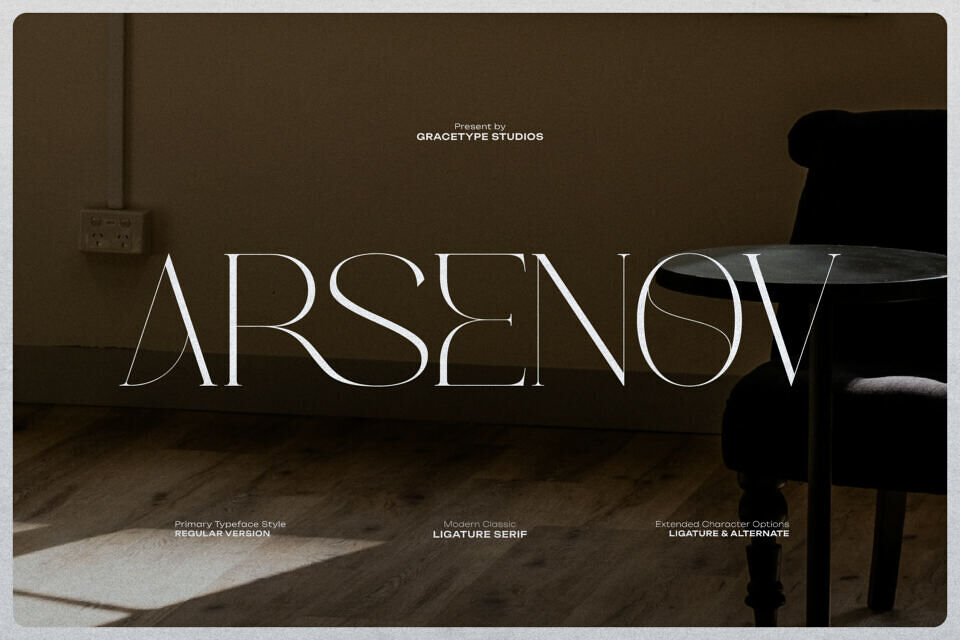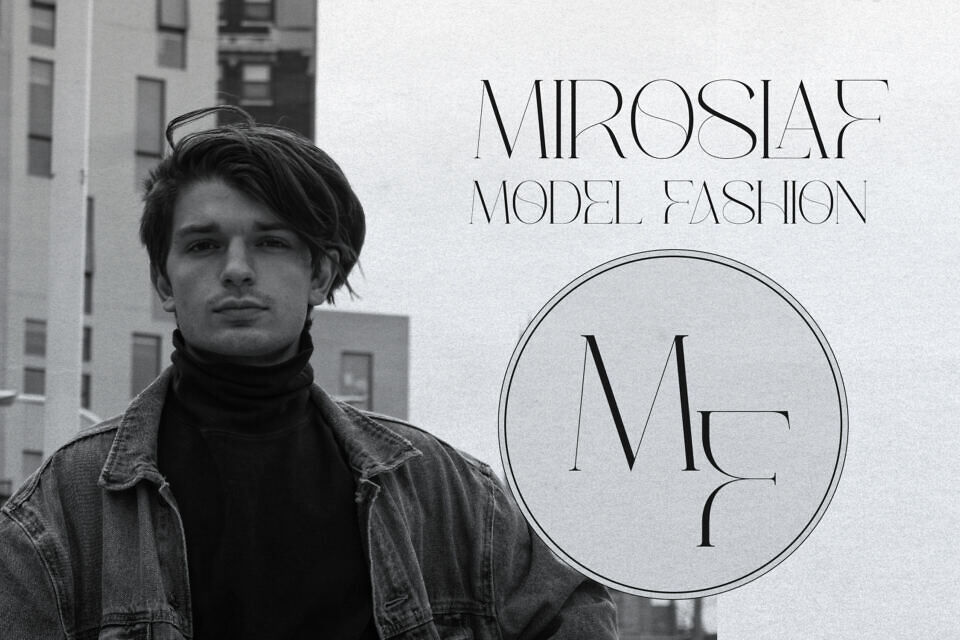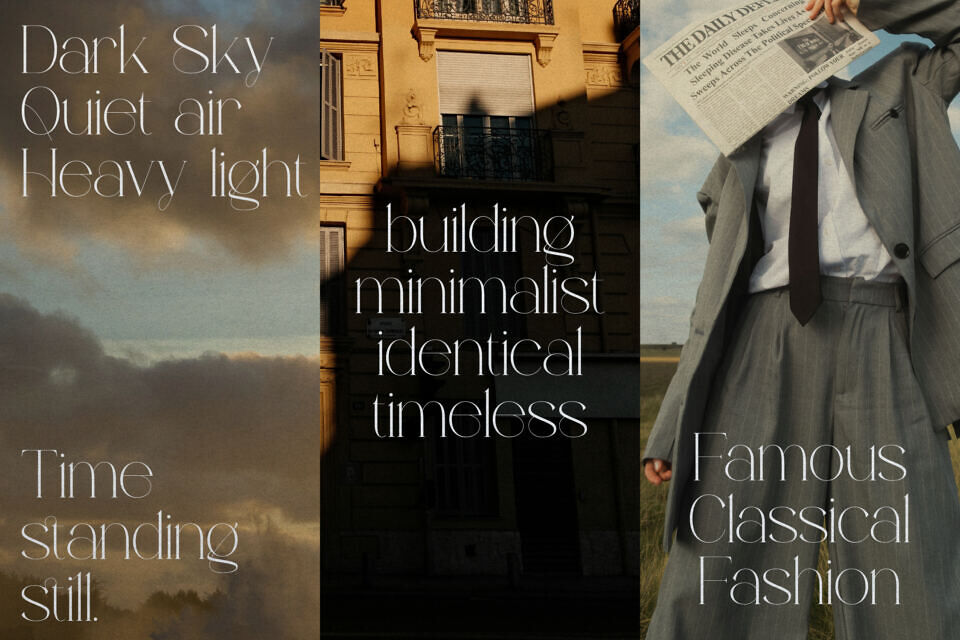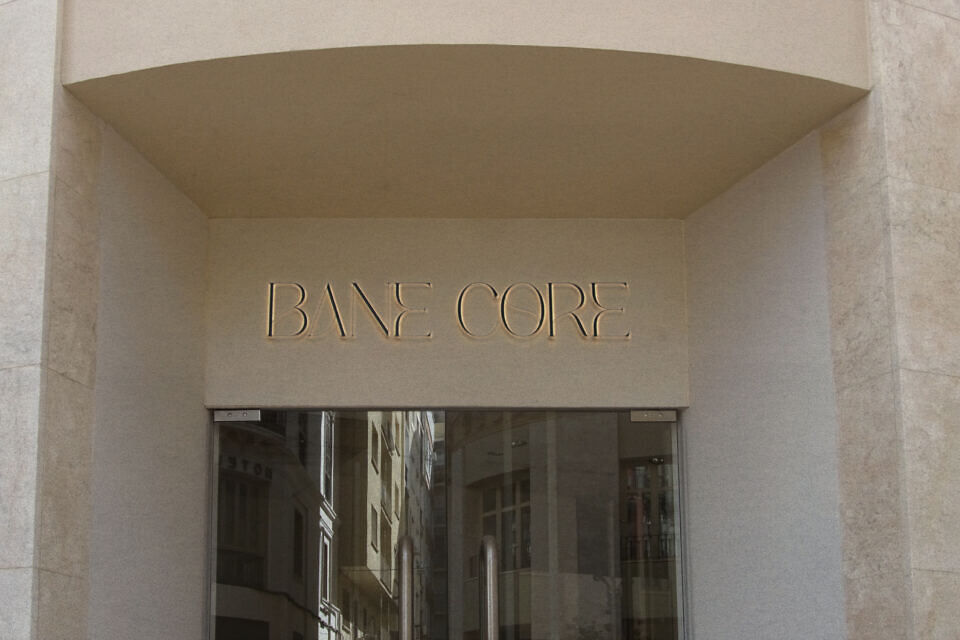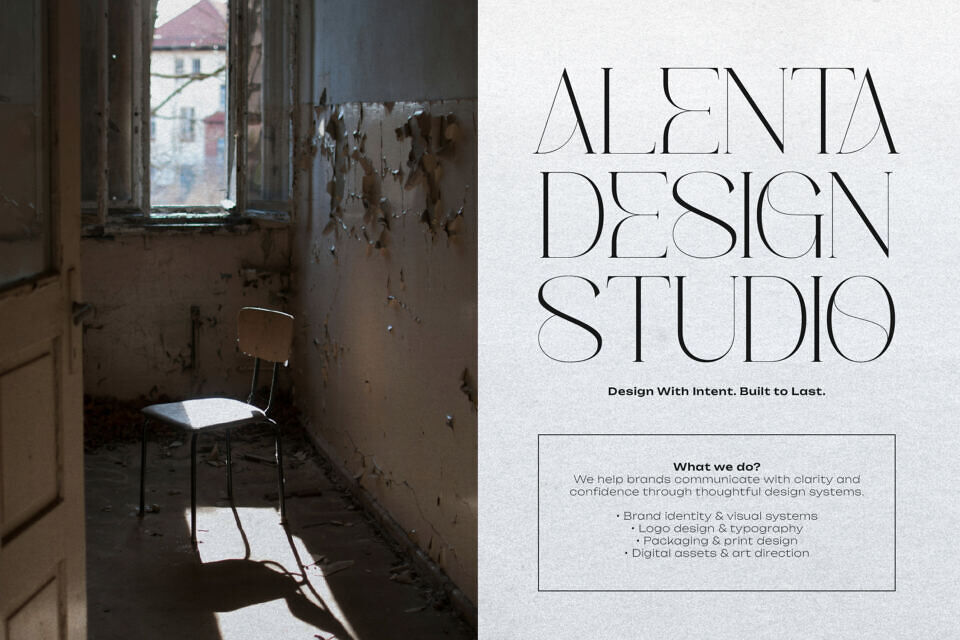
Bold, geometric, and undeniably stylish, the Arsenov font is a contemporary take on the classic serif. This Arsenov typeface stands out with its wide proportions and unexpected, artistic ligatures that give it a “custom-lettered” feel.
The Arsenov font manages to feel both archival and futuristic, making it a versatile powerhouse for designers working on everything from tech-focused branding to high-concept art galleries. Its sharp angles and circular curves create a visual tension that is both arresting and harmonious.
Utilizing the Arsenov typeface in your designs ensures that your message is delivered with maximum impact. It is particularly effective for bold headlines, billboard advertisements, and cinematic titles.